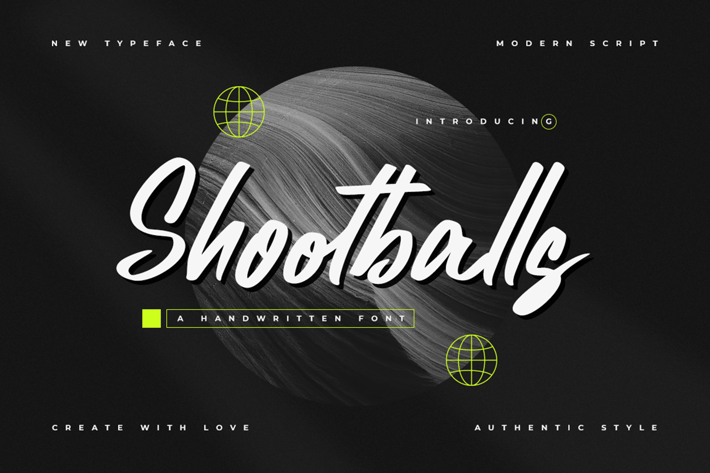
Shootballs - Handwritten Font
Shootballs is an unique handwritten font. It can be used for various purposes such as logos, wedding invitations, headings, t-shirts, letterhead, signage, labels, news, posters, badges and so much more.